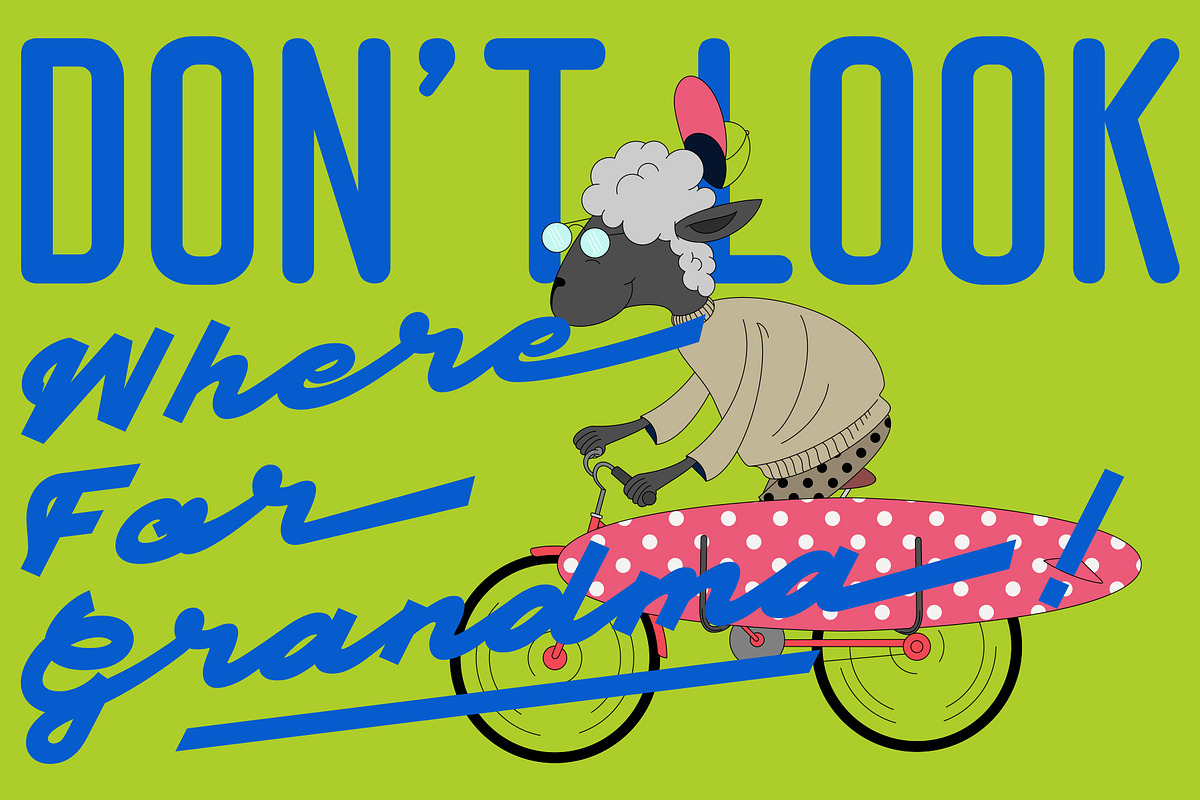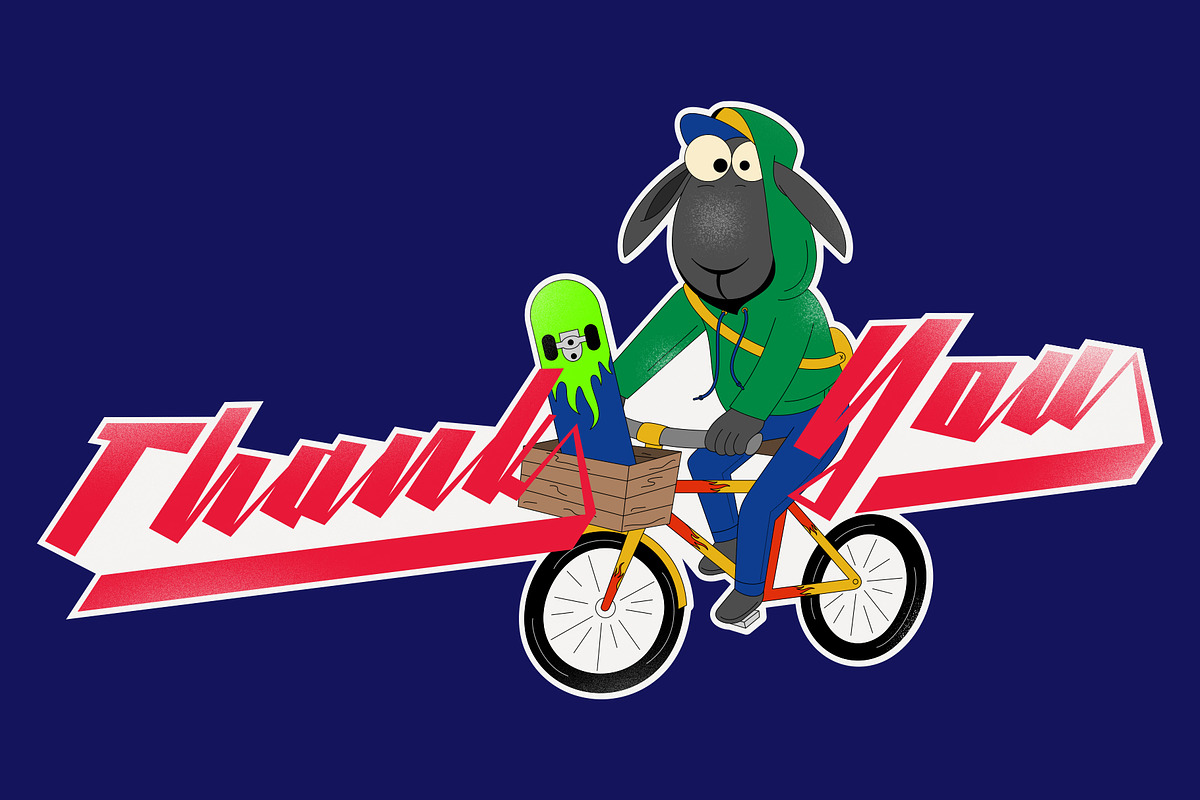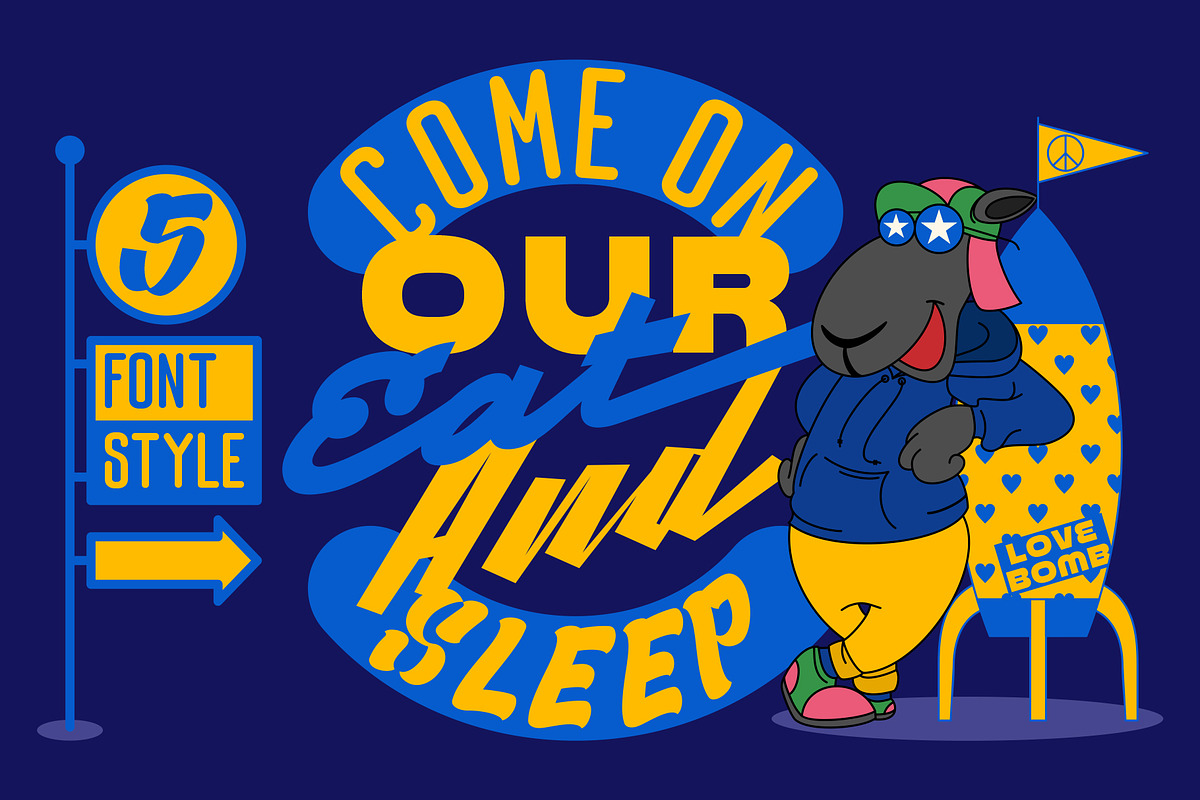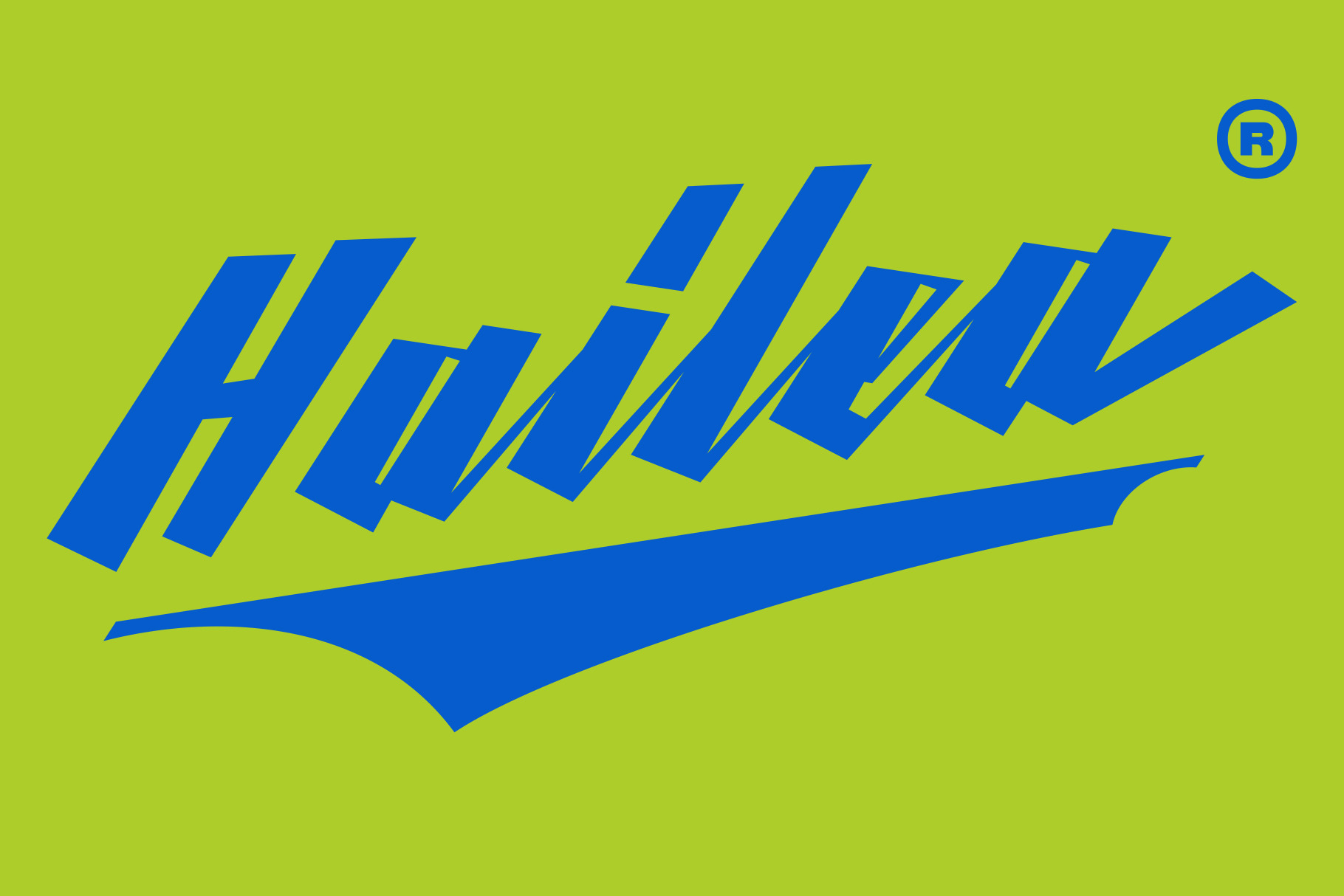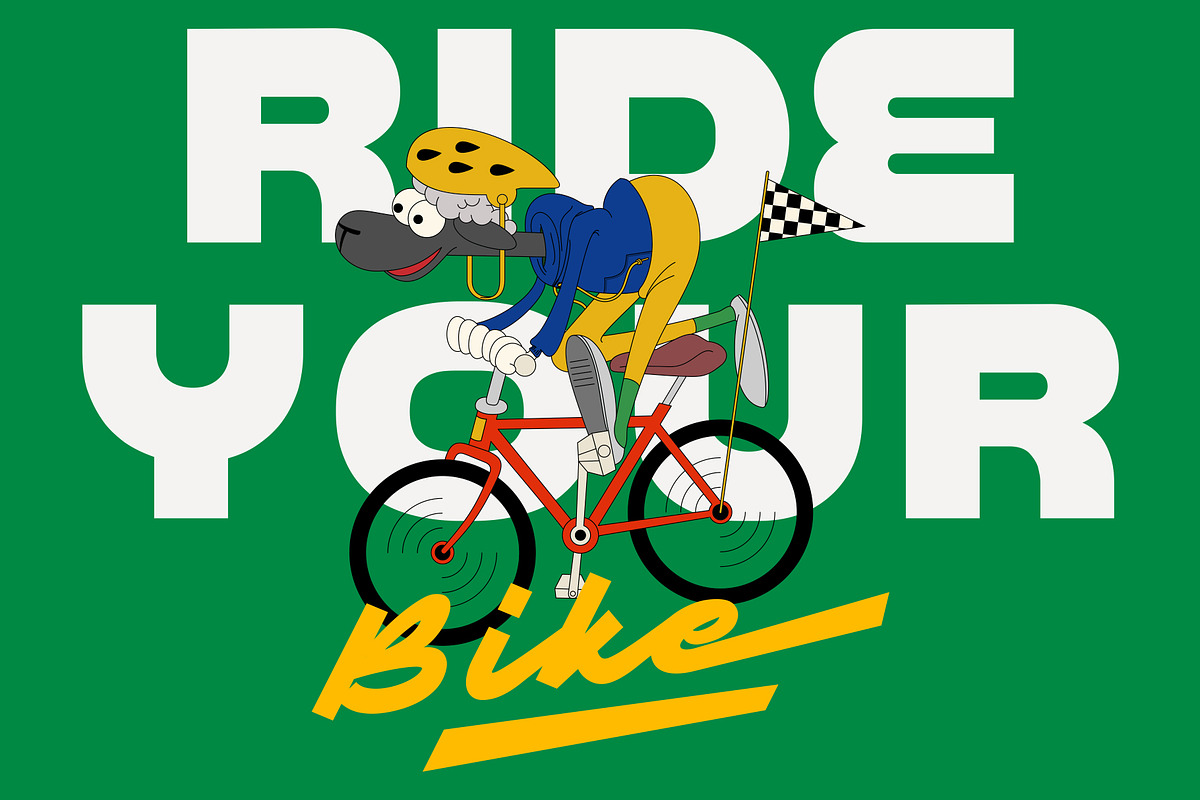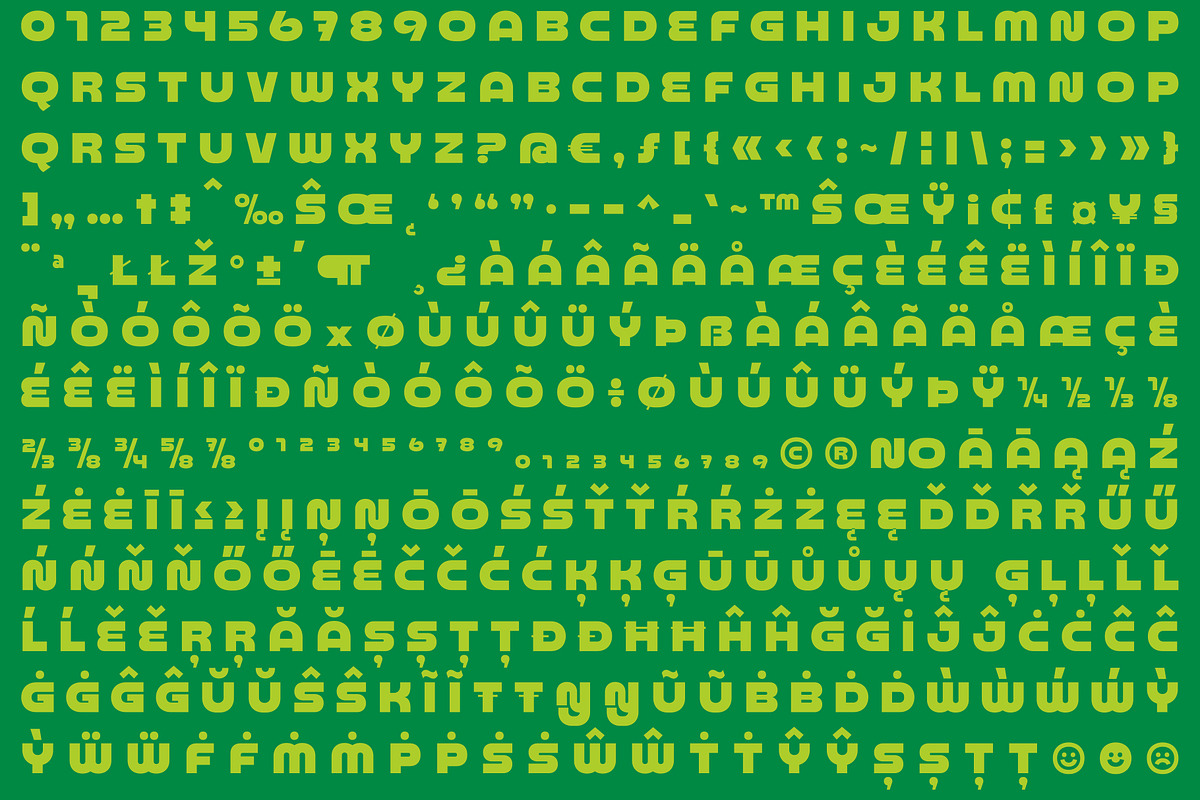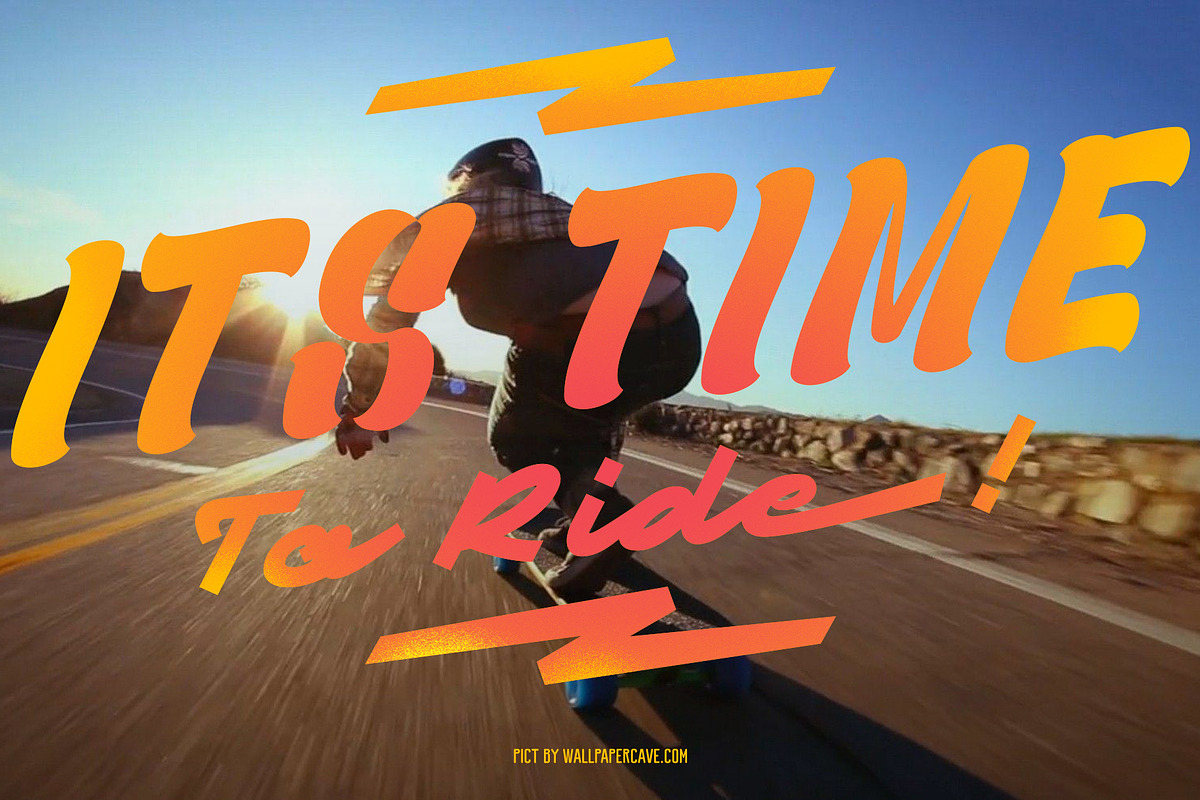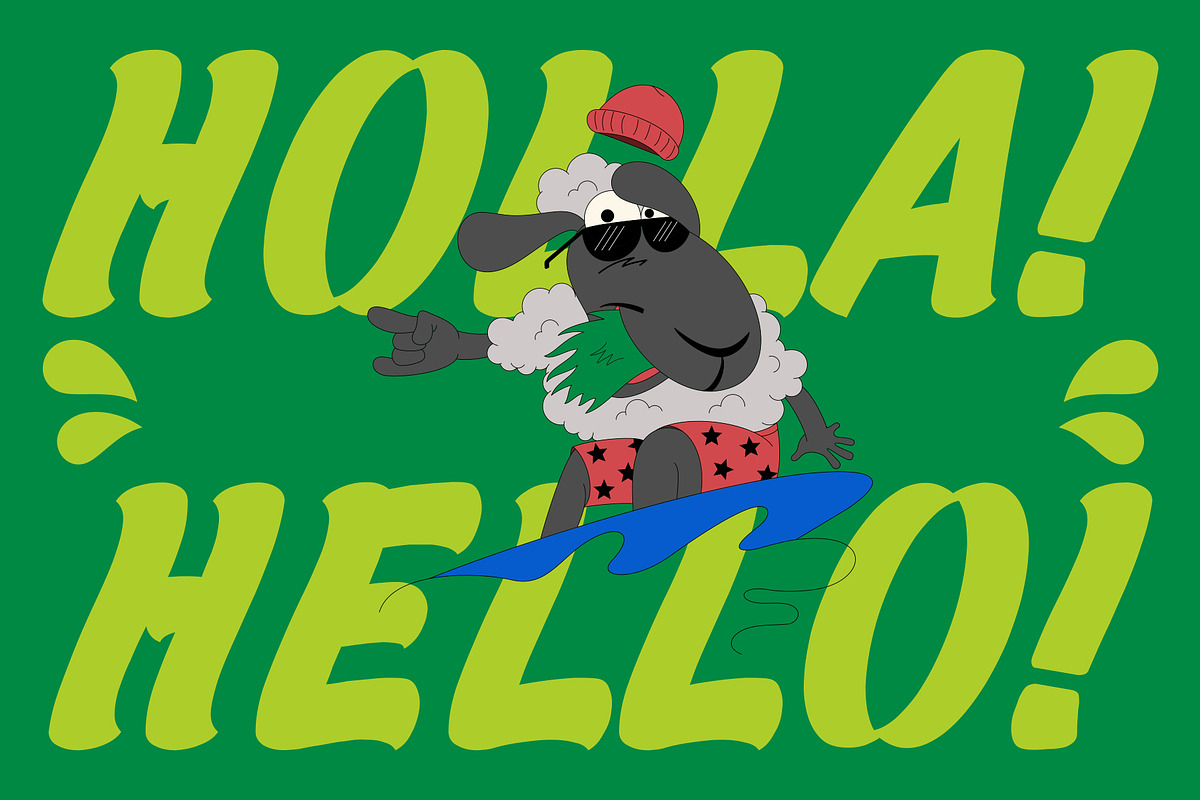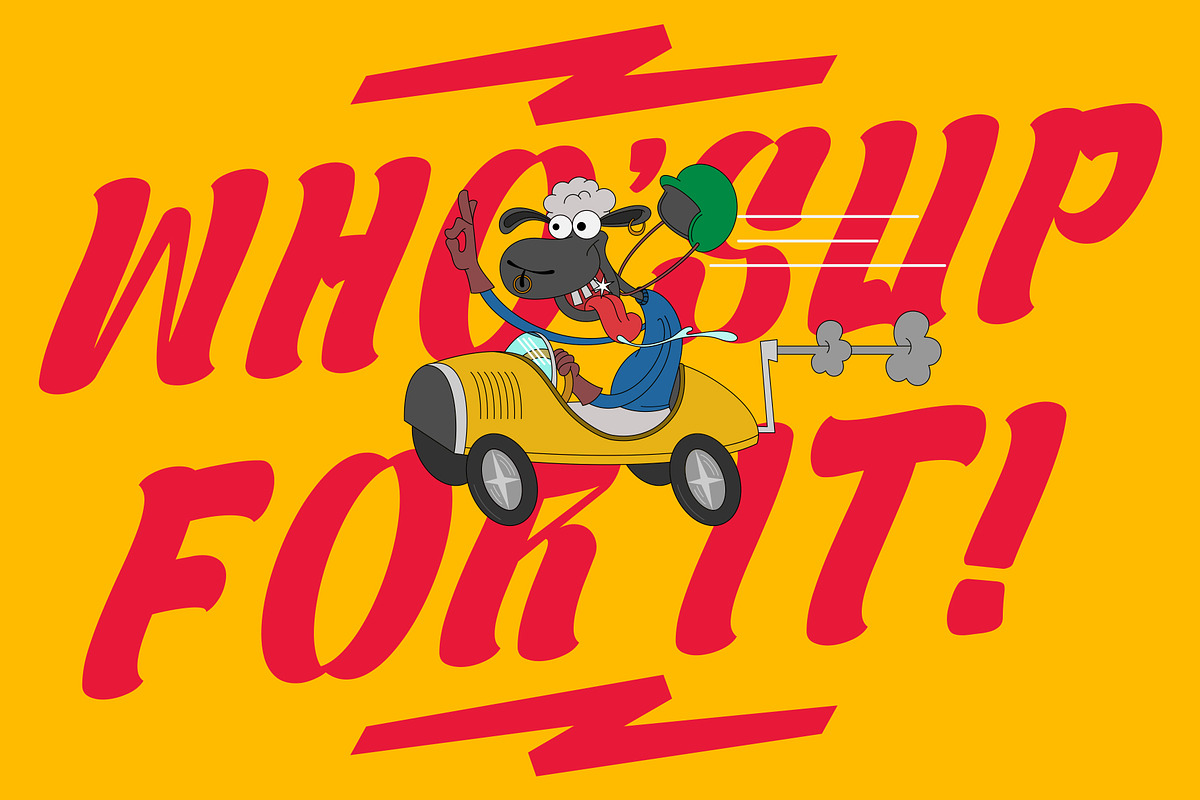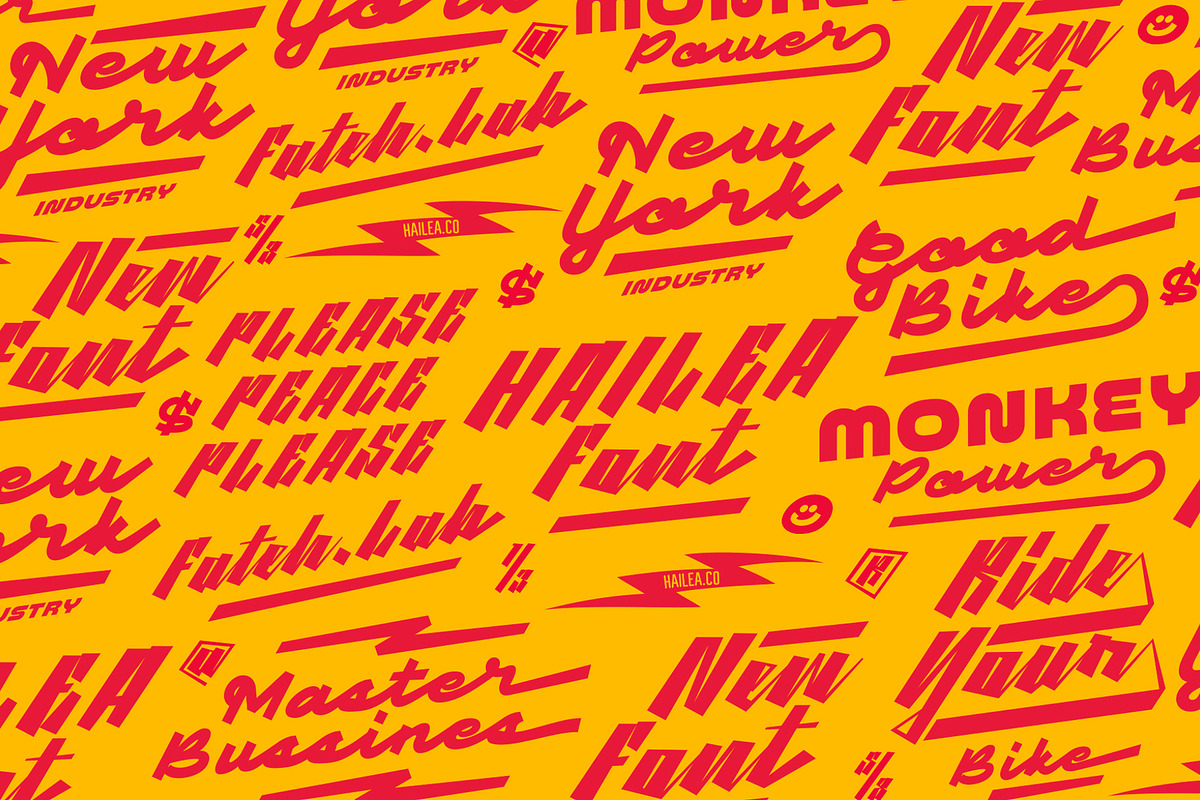
Hailea | Modern Display Font
Hailea is a display font with a modern style, has a firm and strong but soft character, this is very different from the fonts that are widely circulated, carries a cheerful and fresh theme, supported by 5 choices of font types, Hailea is the answer for those of you who are designing great works. and what's even more interesting you get a very cool free vector bonus. Its weight is superior in posters, social media, headlines, magazine titles, clothing, large print formats - and wherever you want to see it. Inspired by the design styles that are currently popular, let's make your imagination come true with hailea.